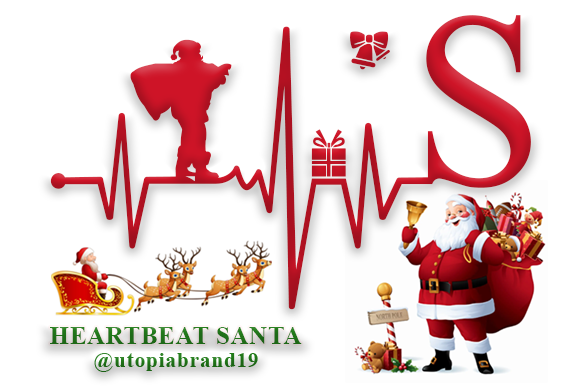
Looking for the perfect font to add a touch of magic and excitement to your holiday designs? Look no further than Monogram Heartbeat Santa Font! This highly detailed and uniquely designed decorative font is the ultimate choice for anyone seeking to elevate their creations and make them stand out from the crowd.
Created by the talented team at utopiabrand19, Monogram Heartbeat Santa Font is a font that exudes charm and whimsy. With its intricate details and captivating design, this font is guaranteed to capture the hearts of both young and old. Whether you're working on a holiday-themed project, designing a children's game, or simply want to add a lovely touch to any creation, this font is the perfect companion.
With its playful and inviting appearance, Monogram Heartbeat Santa Font is sure to evoke a sense of joy and excitement in your audience. Its eye-catching qualities make it ideal for creating eye-catching headlines, captivating logos, or even unique social media posts. Let your imagination run wild and watch as this font brings your ideas to life in a way that is both memorable and captivating.
But Monogram Heartbeat Santa Font is not just about looks - it's also packed with functionality. With its versatility, you can easily customize the font to suit your specific needs. Whether you're looking for a bold and daring look or a more subtle and elegant touch, this font has got you covered. Its extensive character set allows for endless possibilities, ensuring that you can unleash your creativity to the fullest extent.